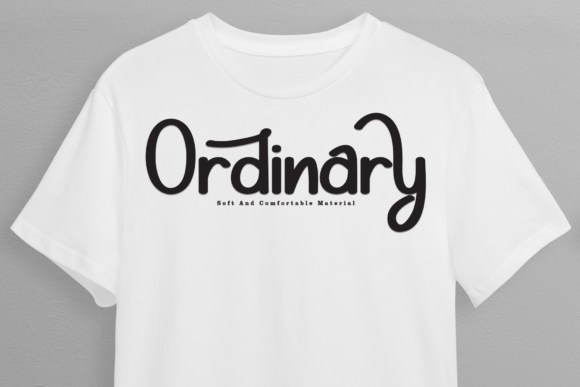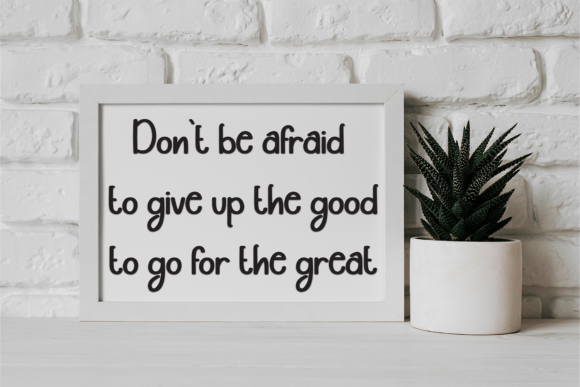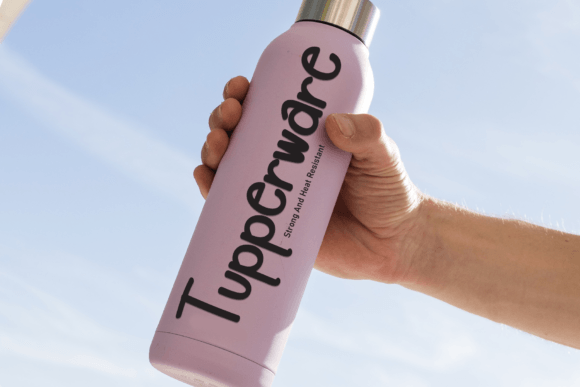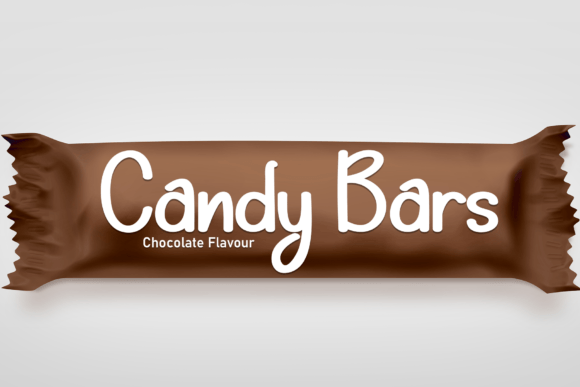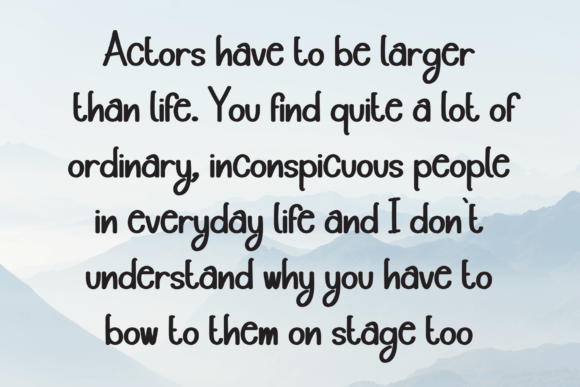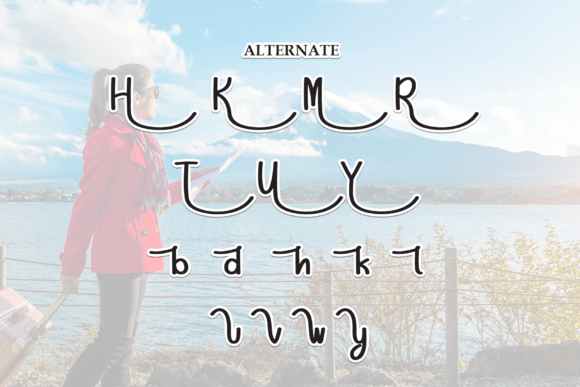
Introduction to Find Hollyday Font
As designers, we’ve all been there – staring at a blank page, trying to bring a creative project to life. The perfect font can make all the difference, and sometimes, it’s the most whimsical and playful options that truly capture our vision. That’s where Find Hollyday Font comes in – a delightful, handwritten display font that’s sure to add a touch of magic to your designs.
| 👤 Author | Strongkeng Old |
This sweet and friendly font is more than just a pretty face – it’s a valuable resource for designers looking to add a high-quality, unique touch to their projects. Whether you’re working on a wedding invitation, a birthday card, or any other design that needs a fun twist, Find Hollyday Font is the perfect choice. And the best part? It’s available for free download, complete with a transparent background for easy customization.
Key Features of Find Hollyday Font
- Unique, festive design with a transparent background for seamless integration.
- Includes 6 styles: Regular, Bold, Italic, Bold Italic, Outline, and Fill.
- Perfect for holiday-themed designs, greeting cards, and festive invitations.
Honest Review: Find Hollyday Font
I recently stumbled upon the Find Hollyday Font while searching for a unique design resource for a creative project. I was immediately drawn to its high quality and versatile style.
- ✨ The font’s transparent background allows for seamless integration with any design element.
- ✨ The font comes in a variety of weights, making it perfect for headings and body text.
- ⚠️ The font may not be suitable for extremely small text sizes, as the letters can become distorted.
- ⚠️ The font family is not as extensive as some other high-quality fonts, which may limit its use in certain design scenarios.
Overall, I’m impressed with the Find Hollyday Font and would recommend it to designers looking for a high-quality, free design resource. With a little creativity, this font can elevate even the most mundane designs to the next level.
Tips for Getting the Most Out of Find Hollyday Font
Some tips for getting the most out of Find Hollyday Font include using it in combination with other design elements to create a cohesive look, experimenting with different font sizes and styles to add visual interest, and using it in a variety of creative projects to showcase its versatility.
Find Hollyday Font is commonly used in a variety of creative projects, including graphic design, digital art, and typography. Its high quality and transparent background make it a great choice for designs that require a clean and modern look.